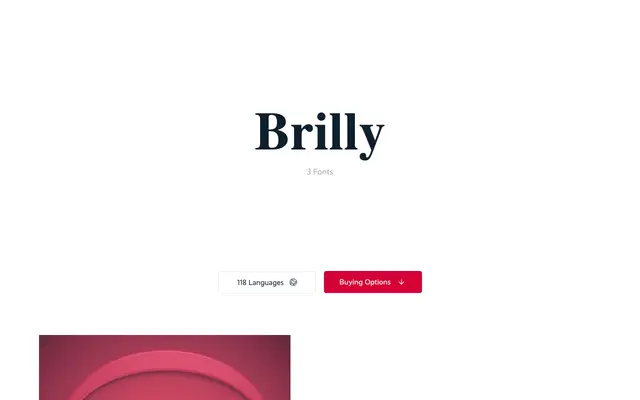
Brilly
Supertype · Jürgen Huber
A sign-painting-derived display face in three styles, built around a subtle left-hand twist that gives it a retro character suited to packaging and signage.
Drawn from sign painting sketches by Jürgen Huber, Brilly offers three stylistic cuts: Regular, Incised and Sans. The defining trait is a slight leftward tilt in the letterforms that introduces movement without tipping into novelty. The family is positioned for packaging, display and brand work where a vintage or classic flavour is needed without resorting to overtly decorative type.
Derived from sign painting sketches with a characteristic left-hand twist, Brilly is clearly a display face rooted in hand-lettering tradition rather than any conventional text category.